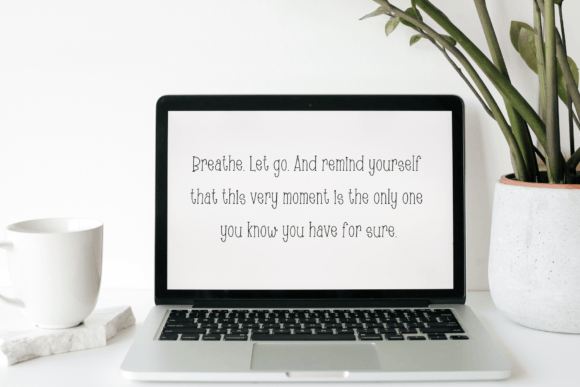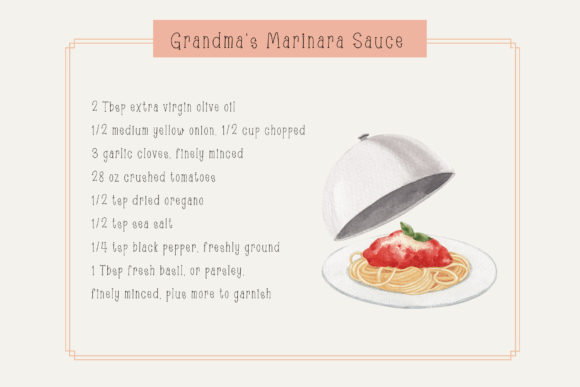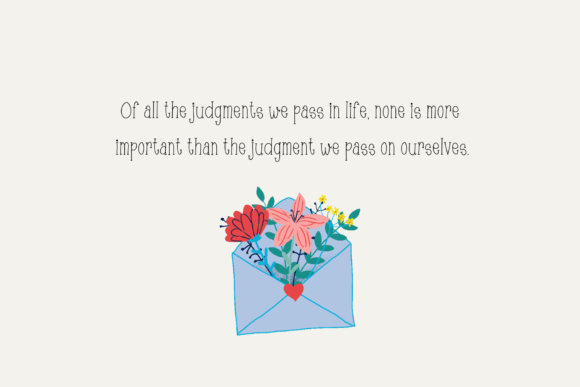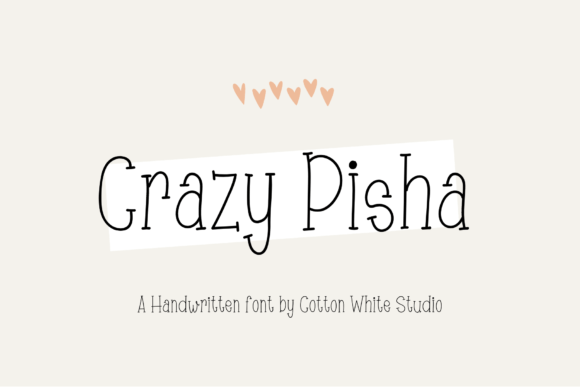
Introduction to Crazy Pisha Font
Crazy Pisha is a handwritten font perfect for digital notes, planners, logos, web design, notebooks, journals, labels, blogs, quotes, greeting cards, tea towels, apparel, pillows, mugs, toys, posters, baby clothing, picture books and so much more…basically anything that requires a handwritten look.
Crazy Pisha is a handwritten font perfect for digital notes, planners, logos, web design, notebooks, journals, labels, blogs, quotes, greeting cards, tea towels, apparel, pillows, mugs, toys, posters,
Why Choose Crazy Pisha Font?
Crazy Pisha Font offers exceptional quality and versatility, making it a valuable addition to your design toolkit. Whether you’re creating for personal projects or commercial use, Crazy Pisha Font delivers professional results.